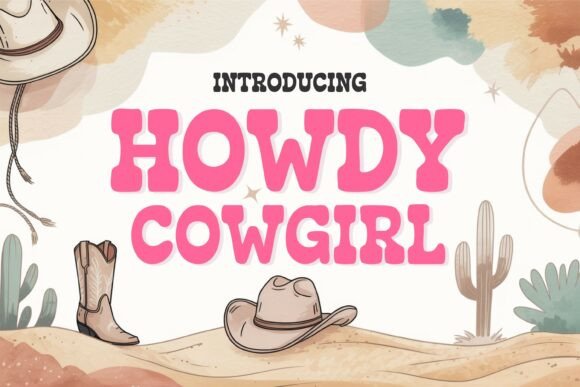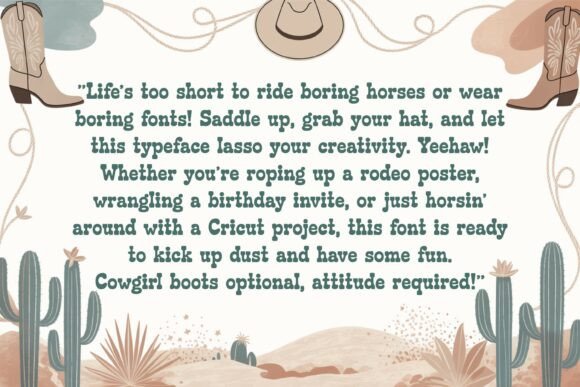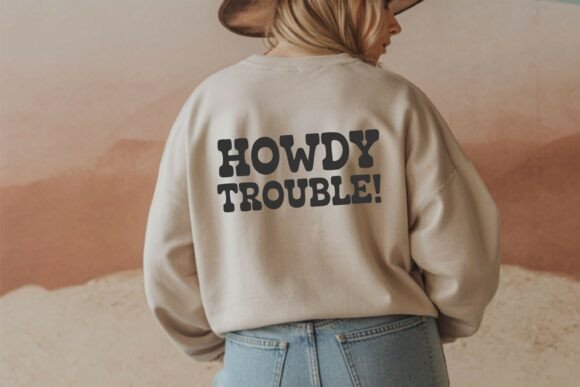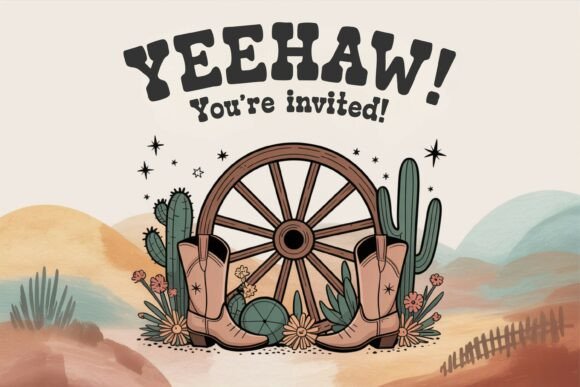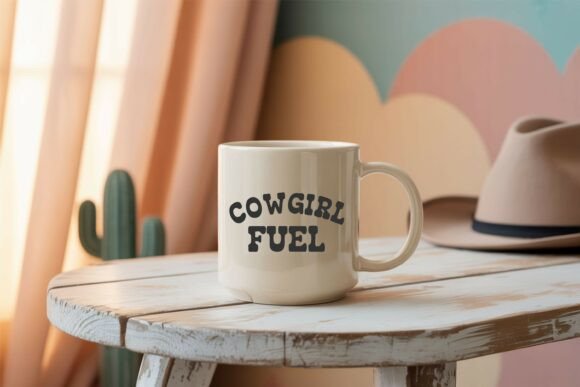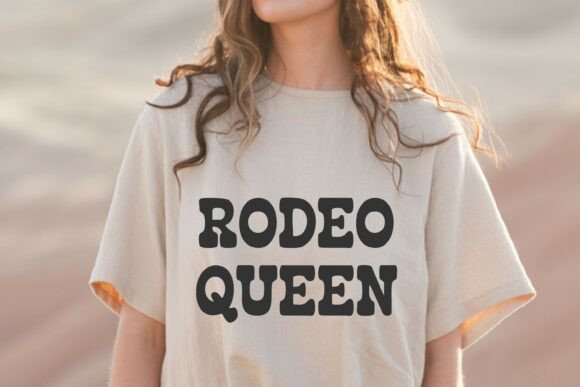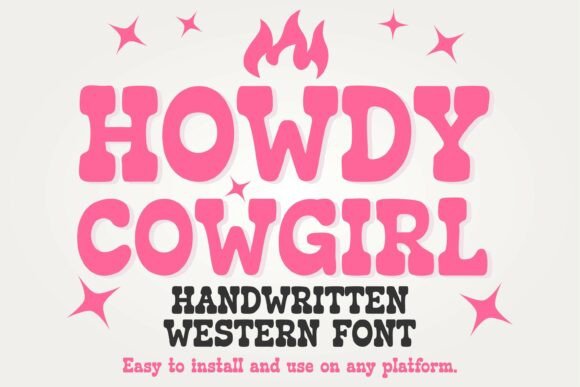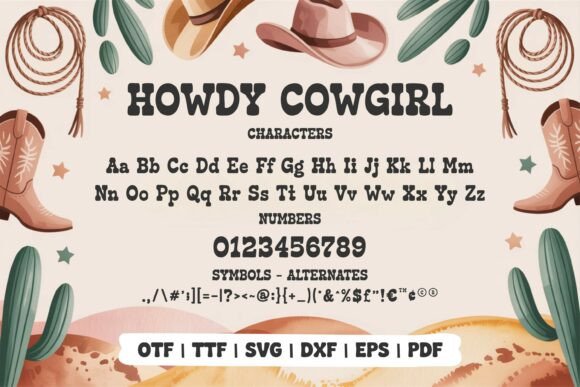
Howdy Cowgirl Font
Imbue your projects with a dash of the Old West using the effortless charisma of Howdy Cowgirl — a robust typeface inspired by the nostalgic feel of dusty cowboy boots and wide-brimmed hats. This font is brimming with a playful country-style charm, characterized by stout serifs, velvety arcs, and an appealing rustic aura that adds a touch of vintage elegance to your projects. Leveraging Howdy Cowgirl can help craft invites for a rousing rodeo, countryside party decorations, heartwarming farmhouse signs, classic western wear, and inspiring printable quotations as well as personalized mug designs.
Despite being tailored for wild western styles, this font isn’t shy of versatility. It enhances your digital artwork, vinyl cuts, and sublimation projects, straddling both professional and DIY crafts. Supporting uppercase and lowercase, numbers, and punctuation marks, this font also reads multilingual texts—packing an impressive variety into your design toolbox. The sleek letters cut cleanly on Cricut and Silhouette machines, ensuring an enjoyable user experience.
Perfect for beautifying a rustic wedding, enlivening a barn dance, or decorating a cowgirl-themed kiddie party, Howdy Cowgirl bahs a bevy of settings where it can spread its country charm. The files are a cinch to install and pair flawlessly with design and editing software like Cricut Design Space, Silhouette Studio, Canva, Procreate, Illustrator, and Photoshop. Unbox your creativity with Howdy Cowgirl and let your imagination roam free in the prairies!